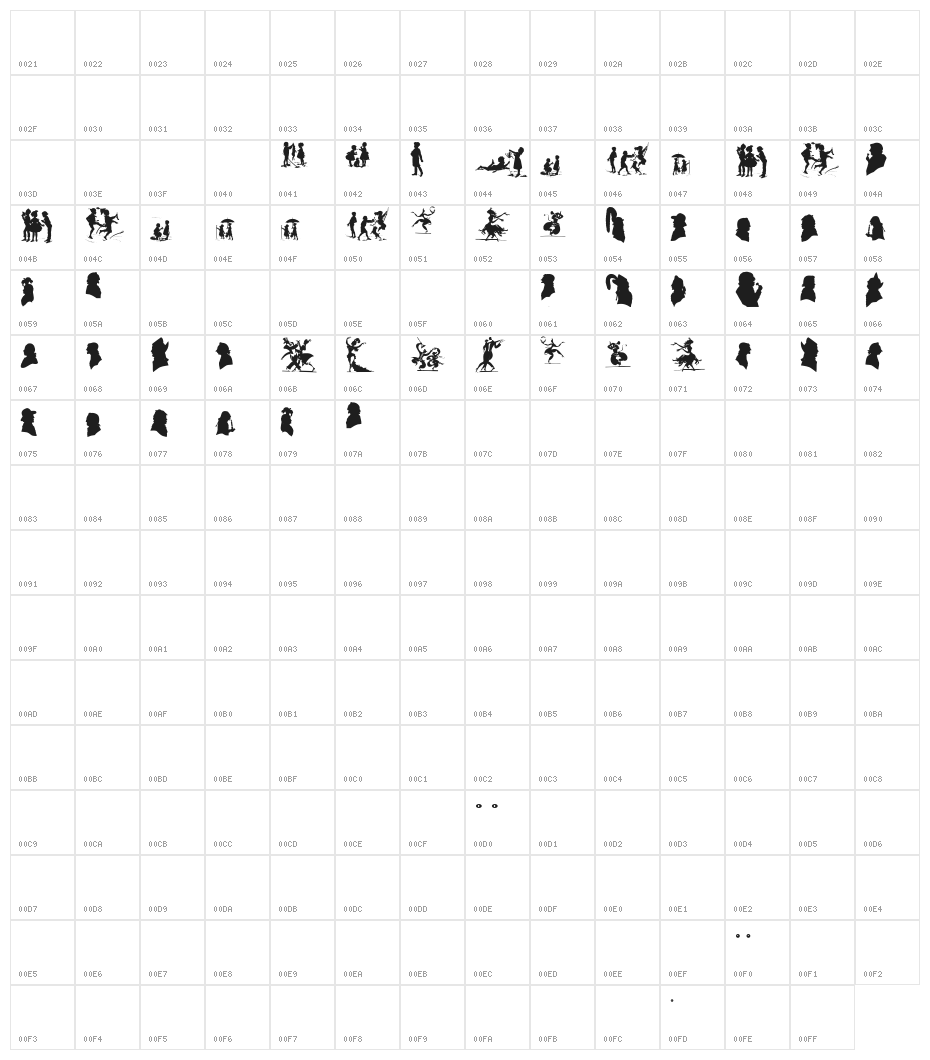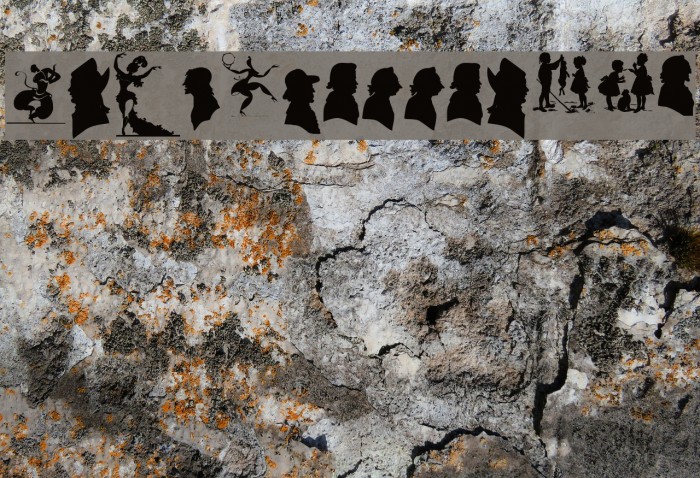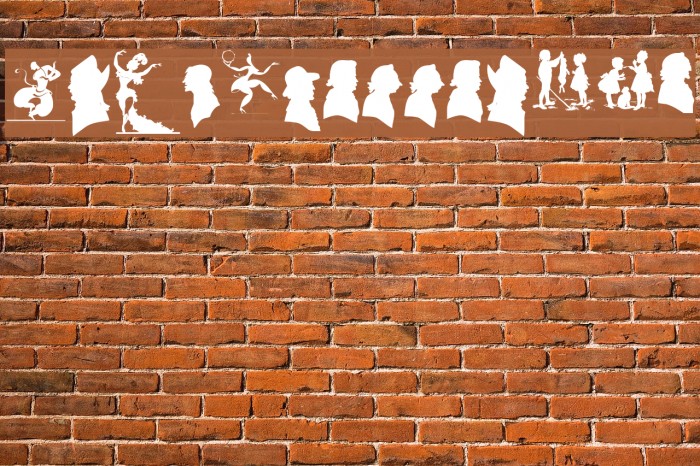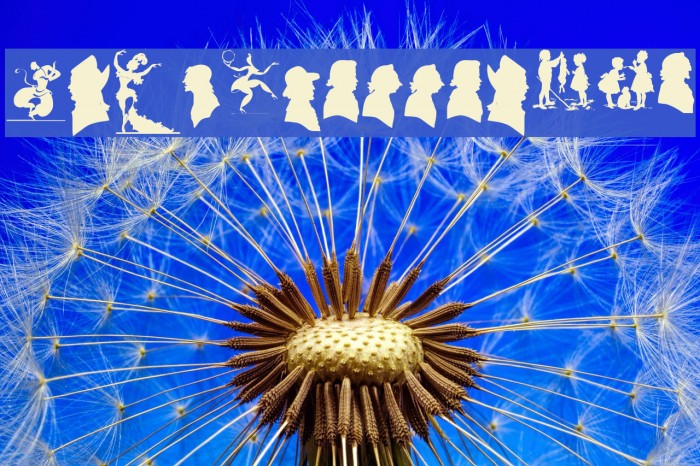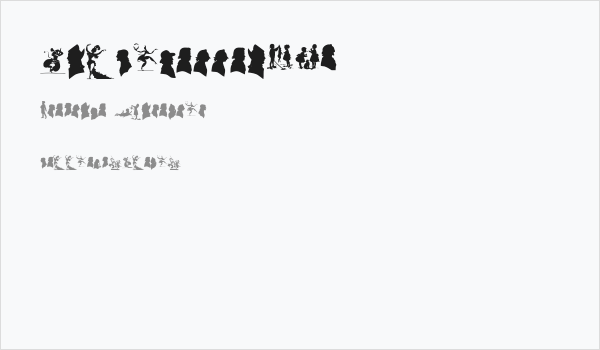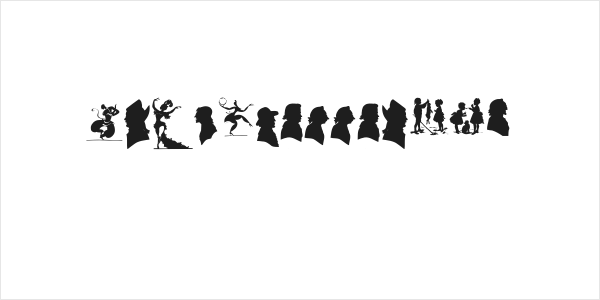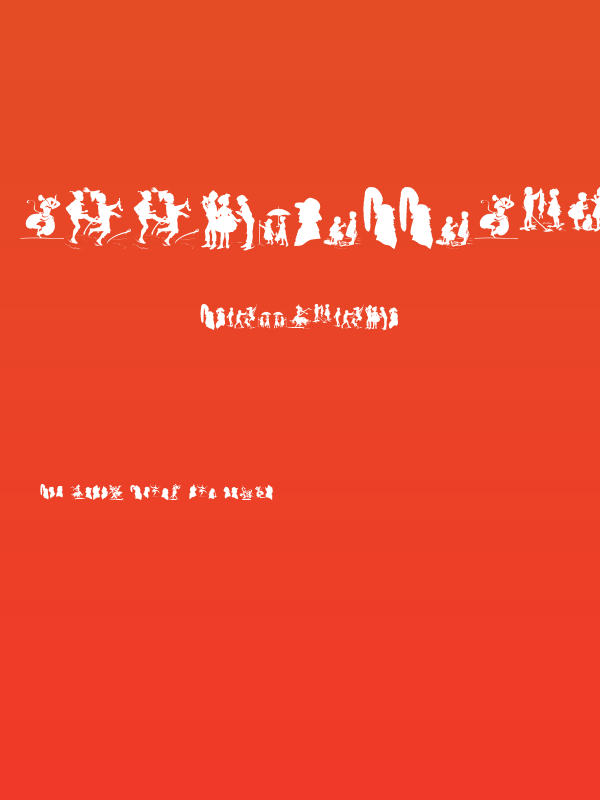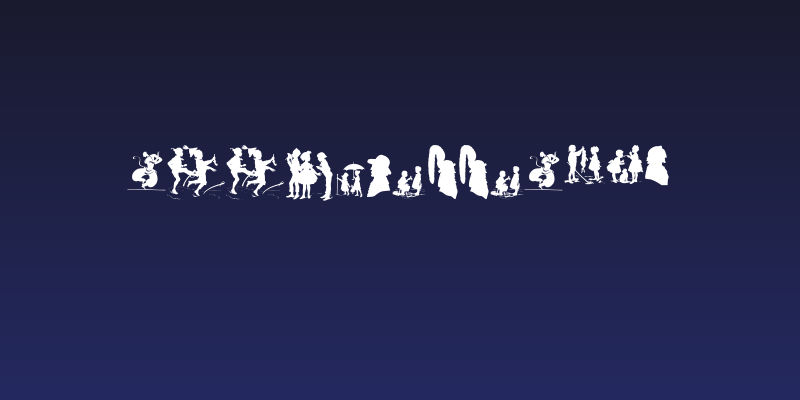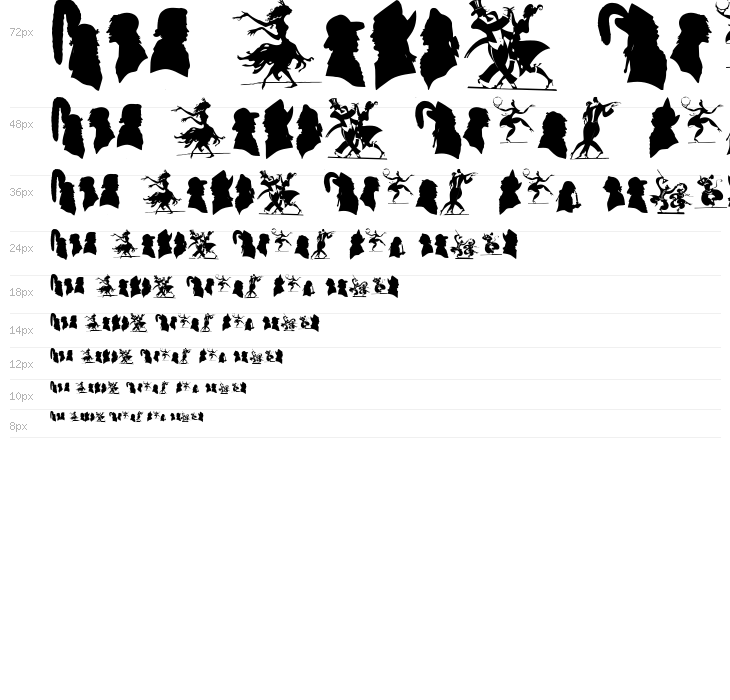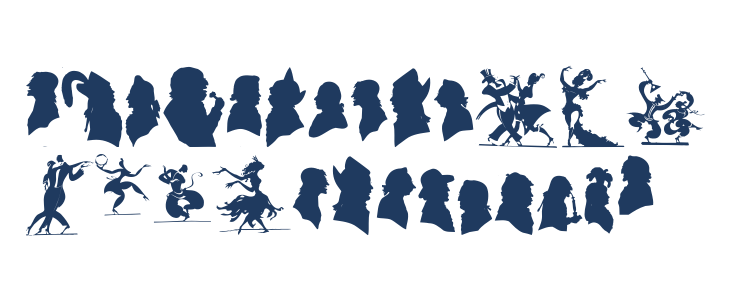
SilhouettesABZ Font
SilhouettesABZ Description
A decorative font composed entirely of detailed black silhouettes depicting people, children, dancers, and whimsical characters, as well as classic profile busts. Each character is represented by a unique silhouette illustration, creating a playful and artistic visual effect.
| Overall Style | Decorative, Playful, Artistic |
| Use Case | Logos, Headlines, Posters, Themed Invitations |
| Proposed Projects | ChildrenΓ’β¬β’s books, event posters, theatrical programs, creative branding, art projects. |